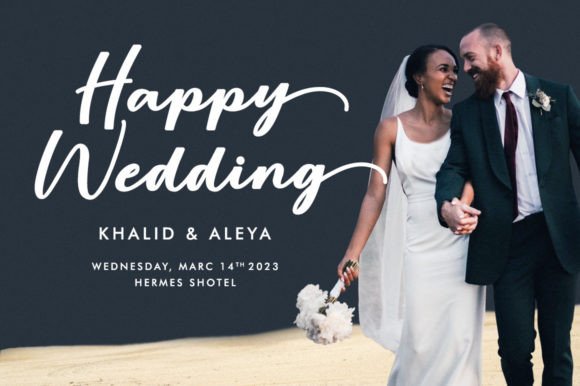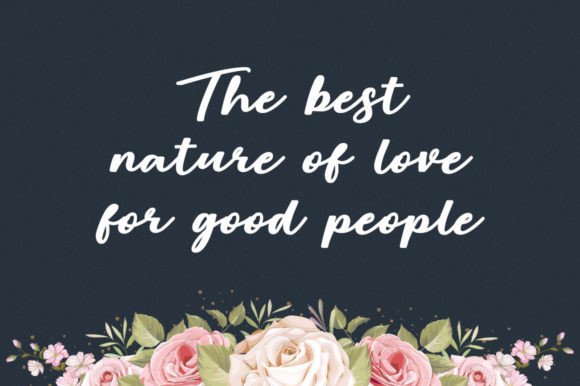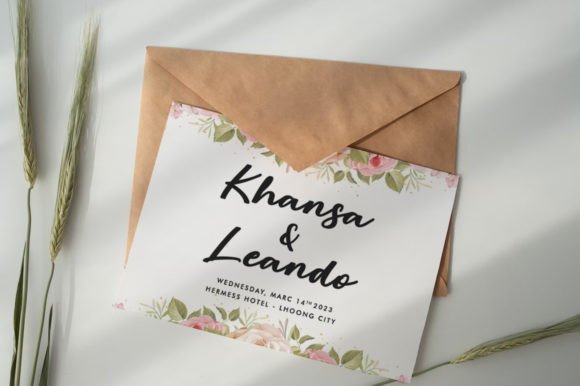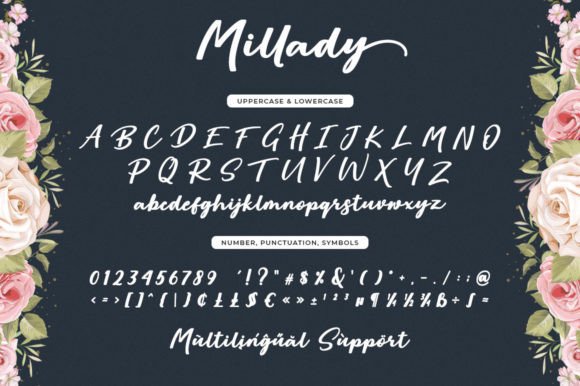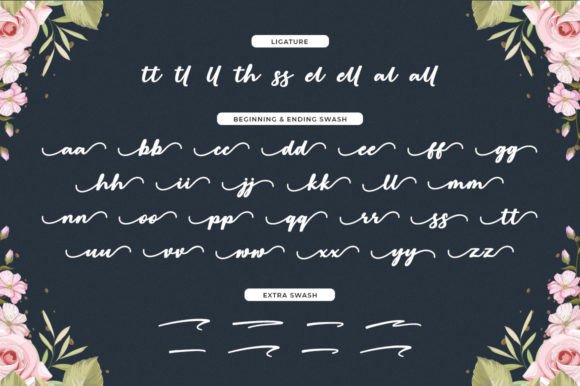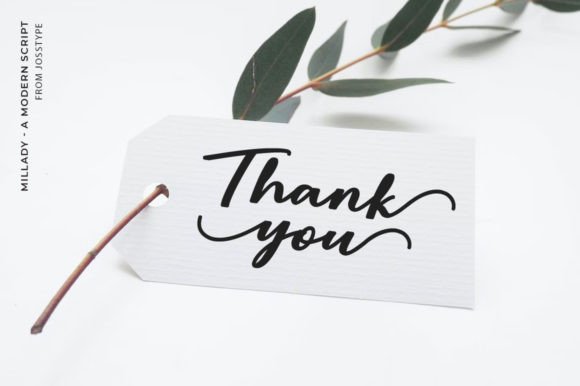
Introduction to Millady Script Font
As a designer, there’s nothing quite like the thrill of bringing a creative project to life. Whether it’s a wedding invitation, a logo for a new business, or a greeting card for a loved one, the right font can make all the difference. For me, it’s the Millady Script Font that always gets my creative juices flowing. Its classic, elegant touch is the perfect combination of sophistication and whimsy.
With its beautiful formal script and PUA-encoded glyphs, the Millady Script Font is a design resource like no other. Not only is it a high-quality font that’s perfect for a wide range of creative projects, but it’s also incredibly easy to use. Whether you’re looking to create a custom logo, a print ad, or even a quote, this font is a valuable tool that’s sure to elevate your design to the next level.
Key Features of Millady Script Font
- High-quality, elegant script font ideal for creative projects requiring a touch of sophistication.
- Features a transparent background, allowing for seamless integration with images and backgrounds.
- Designed with a high level of detail and precision, resulting in a crisp and clear appearance at resolutions up to 300 DPI.
- Suitable for use in a wide range of applications, from invitations and greeting cards to wedding stationery and branding materials.
Honest Review: Millady Script Font
As a designer, I’ve had the pleasure of working with numerous fonts, but the Millady Script Font has caught my attention for its elegant and sophisticated vibe. It’s a perfect design resource for any creative project that requires a touch of whimsy and romance.
- ✨ Unique and intricate lettering that adds a personal touch to designs
- ✨ High-quality resolution, suitable for print and digital applications
- ✨ Transparent background, making it easy to combine with other design elements
- ⚠️ Limited font sizes, which can make it challenging to use in large-scale designs
- ⚠️ Not suitable for sans-serif or modern designs, as it has a distinctly vintage feel
Overall, I’m impressed with the Millady Script Font’s ability to elevate designs with its beautiful, handwritten style. While it may have some limitations, it’s a valuable addition to any designer’s toolkit, especially for projects that require a touch of elegance and sophistication.
Millady Script Font
Transparent Background and Customization
The Millady Script Font can be used with a transparent background, giving you flexibility and creative control. You can also customize the font to fit your design needs, from font size to color.
The Millady Script Font is perfect for:
Wedding invitations and stationery.
Birthday cards and party invitations.
Branding and marketing materials.